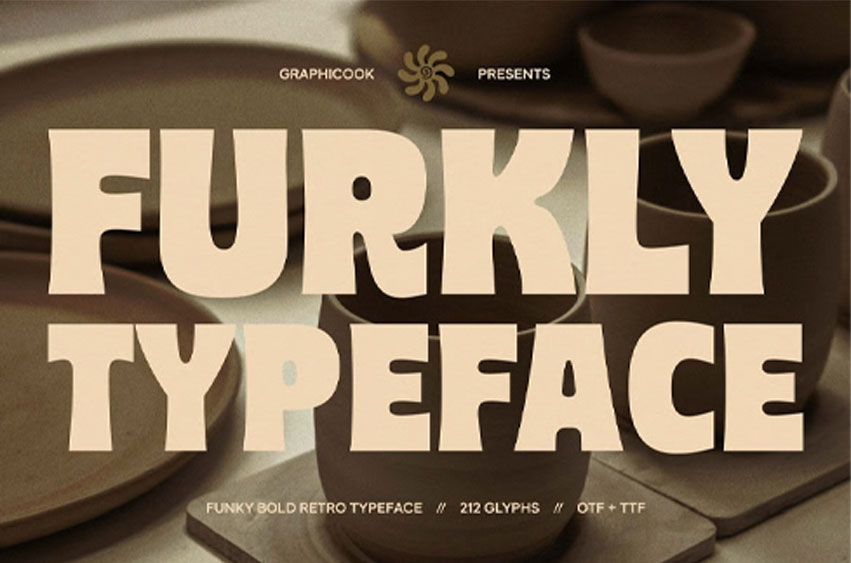
Furkly Font
Furkly Font is a funky, bold retro font that blends classic vintage charm with a strong modern character. Warm, playful, and stylish, it draws inspiration from ’70s design culture, making it ideal for posters, café branding, packaging, logos, fashion visuals, editorials, and retro lifestyle-themed social media content.
It is perfect for headlines, logotypes, magazines, packaging, quotes, movies, games, cover albums, book covers, and flyers, it’s a perfect solution for creating eye-catching designs that stand out in any context.